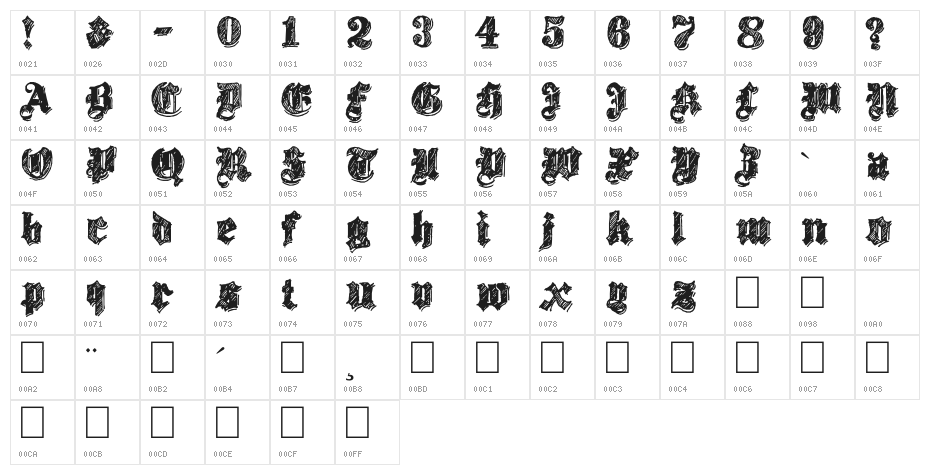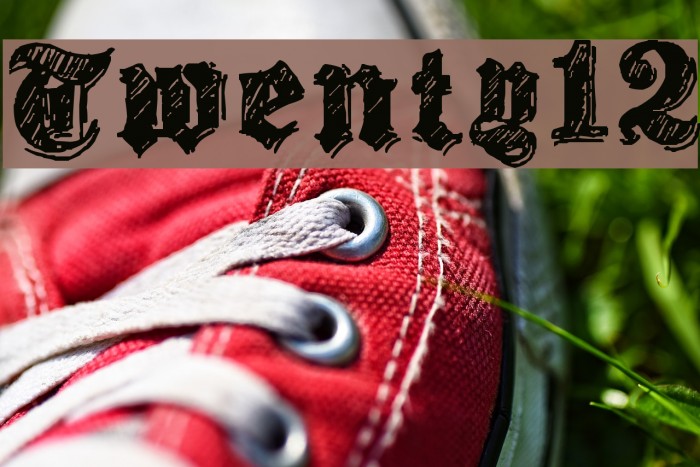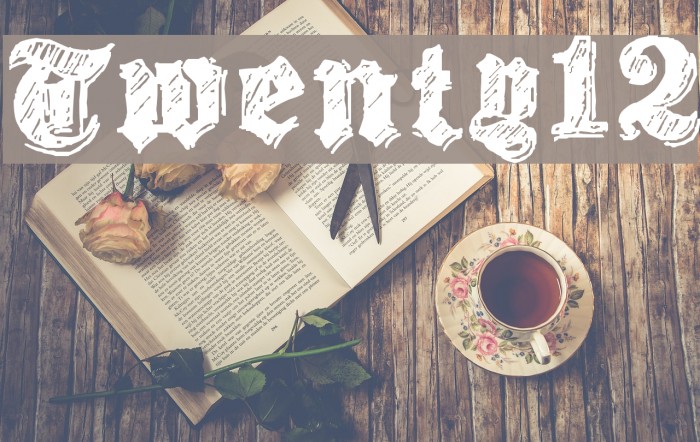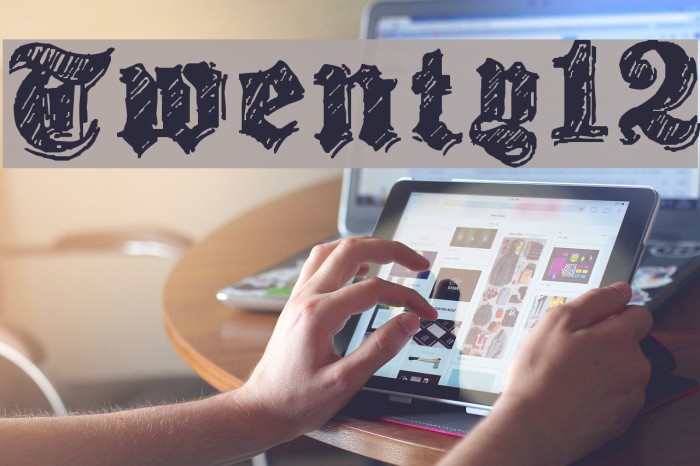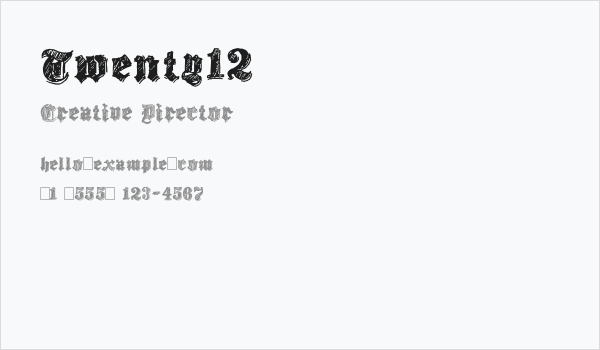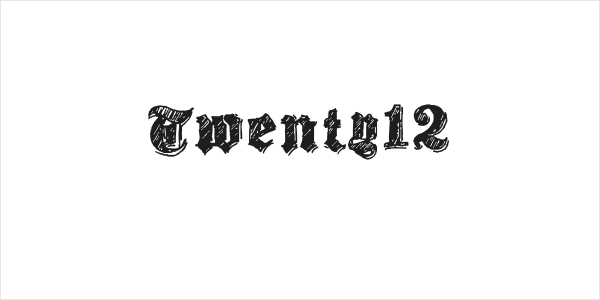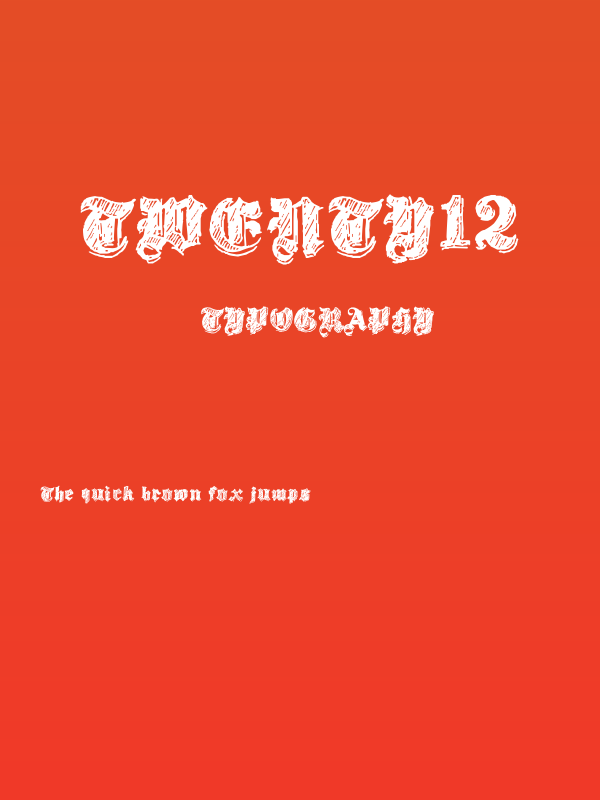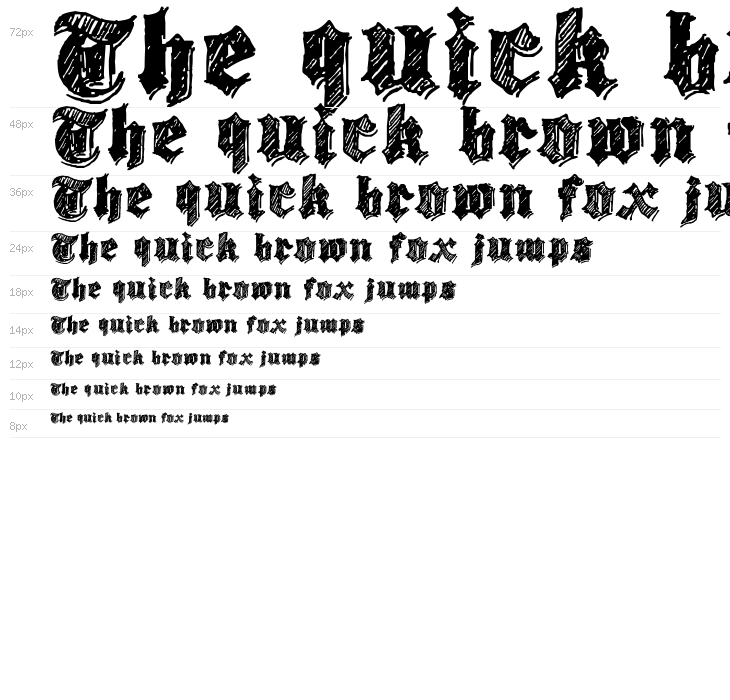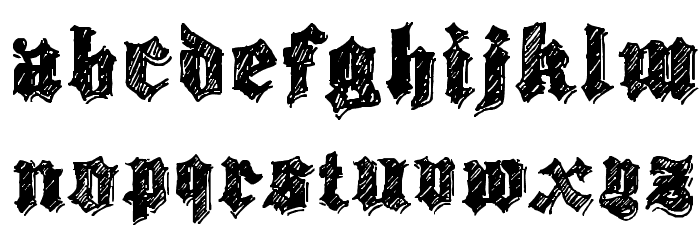
Twenty12 Font
Twenty12 Description
This font exhibits a bold and intricate blackletter style, characterized by its ornate and decorative elements. The letters are heavily stylized with sharp angles and elaborate serifs, creating a dramatic and historical appearance. The uppercase letters are particularly elaborate, with flourishes that enhance their gothic aesthetic. The lowercase letters maintain the same intricate detailing, ensuring consistency throughout the typeface. The numerals are equally stylized, matching the ornate quality of the alphabet. This font's unique style is reminiscent of medieval manuscripts and traditional calligraphy, making it stand out with its distinct and artistic flair.
| Use Case | Logos, Headlines, Decorative purposes |
| Proposed Projects | Ideal for projects requiring a historical or gothic theme, such as book covers, posters, or branding for products with a vintage or medieval aesthetic. |